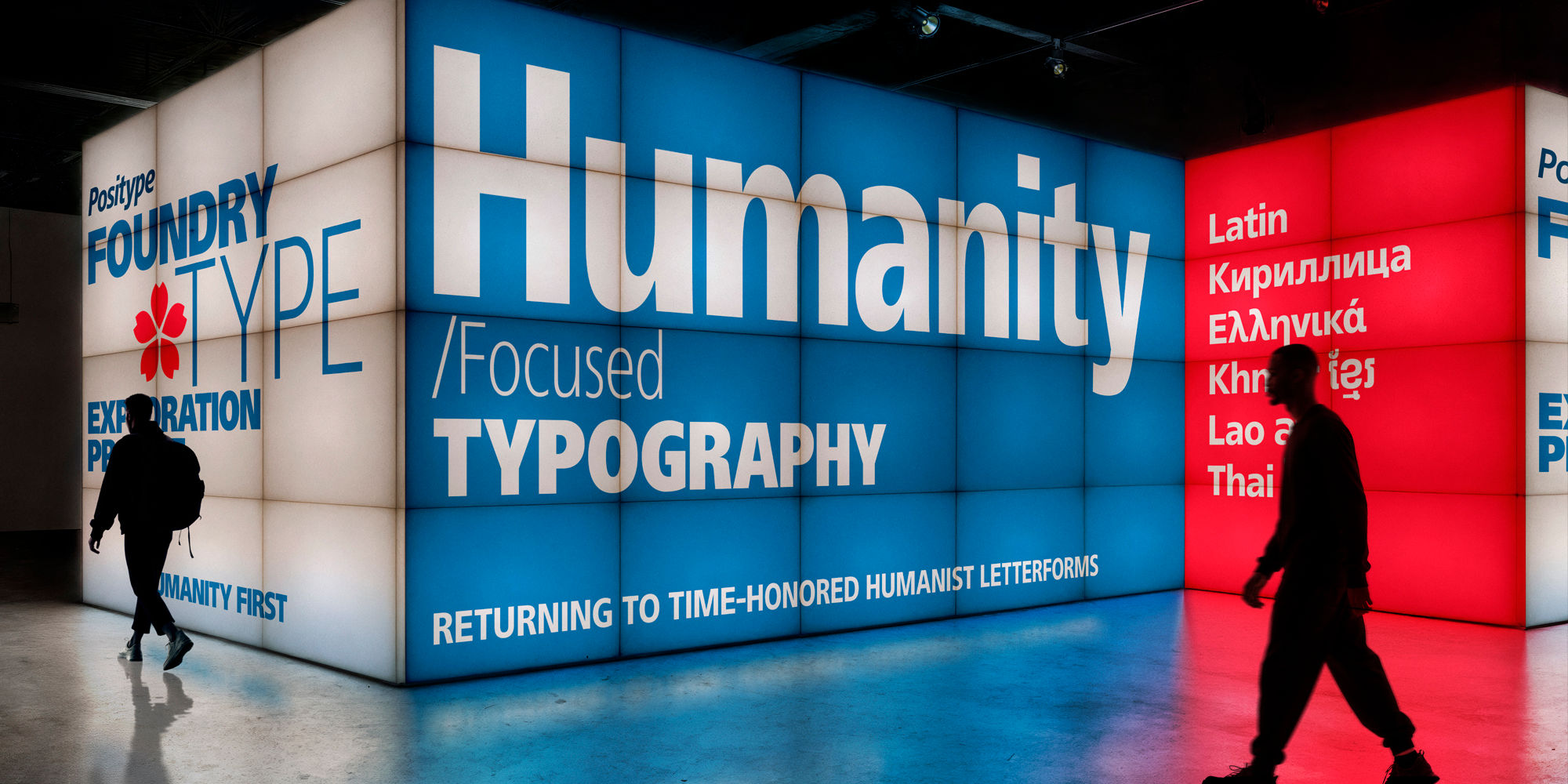
Human Condensed Кириллица
ff fi fl ffl
Standard Ligaturesliga
12345/67890
Fractionsfrac
x1+y3=z58
Superscriptsups
H2O K2SO4
Scientific Inferiorssinf
1st 2nd 3rd
Ordinalsordn
[H] H@ ¿H
Case-Sensitive Formscase
0123456789
Tabular Numeralstnum
Human Sans is a humanist sans serif years in the making, built from the ground up to serve as a true typographic workhorse. The typeface began as an evolution of an earlier Positype design but was drawn and redrawn, crafted and recrafted until every decision was resolved on its own terms.